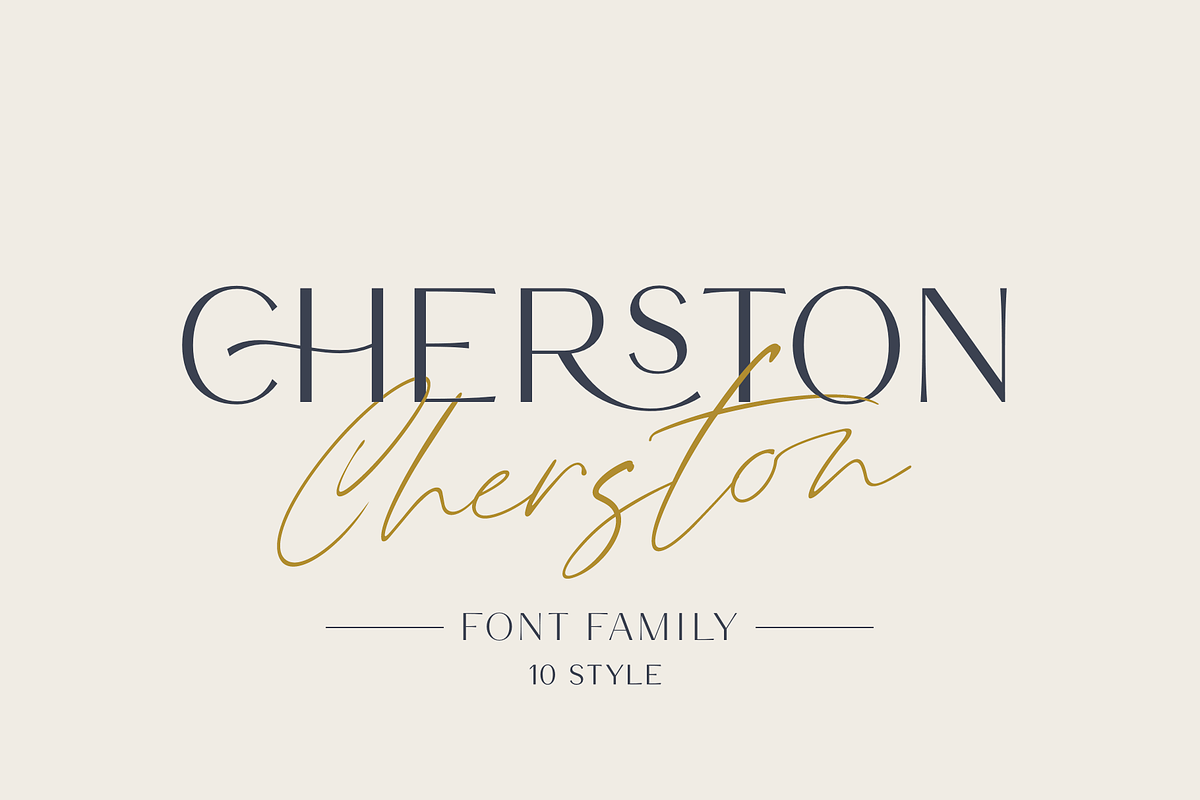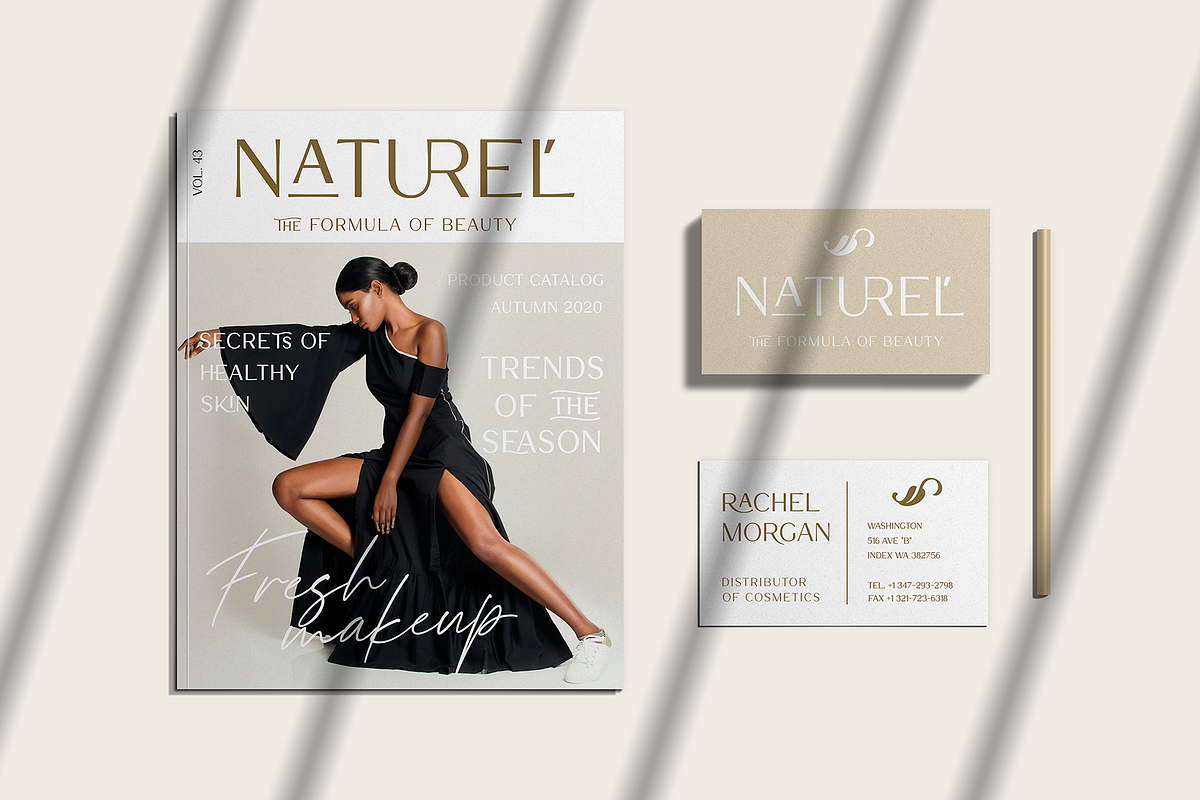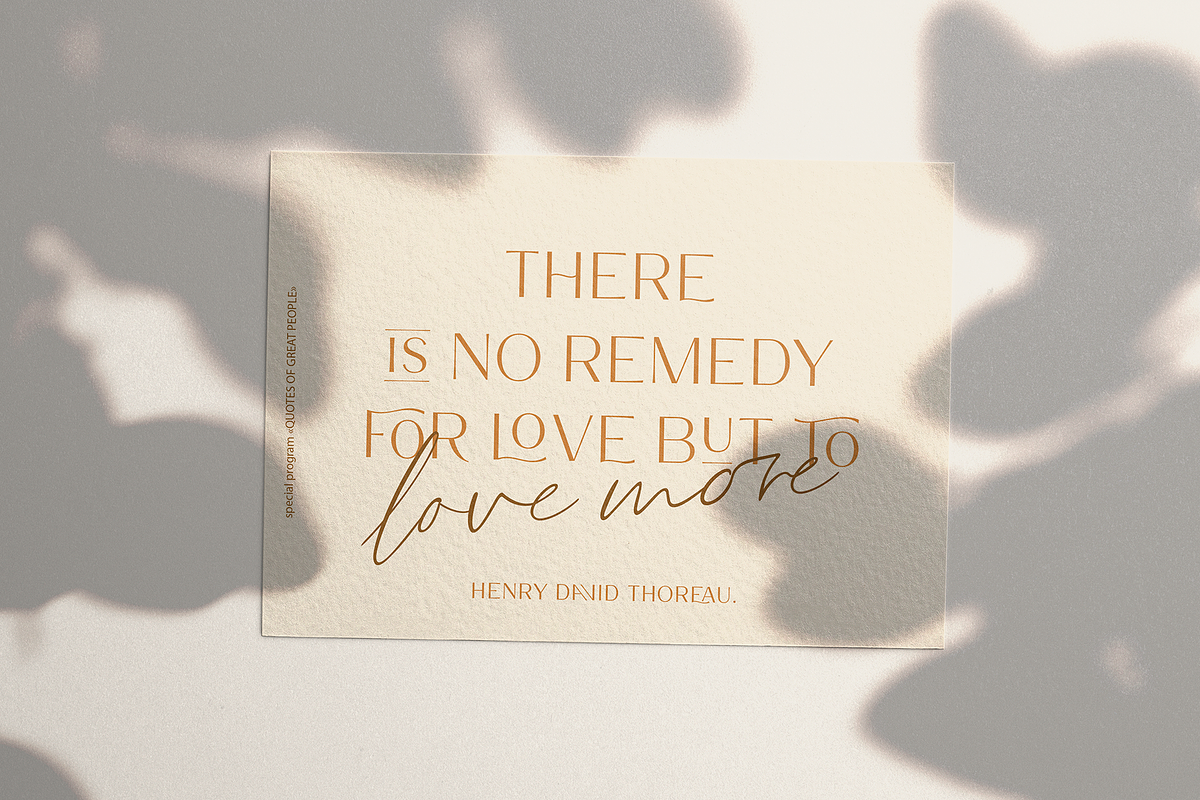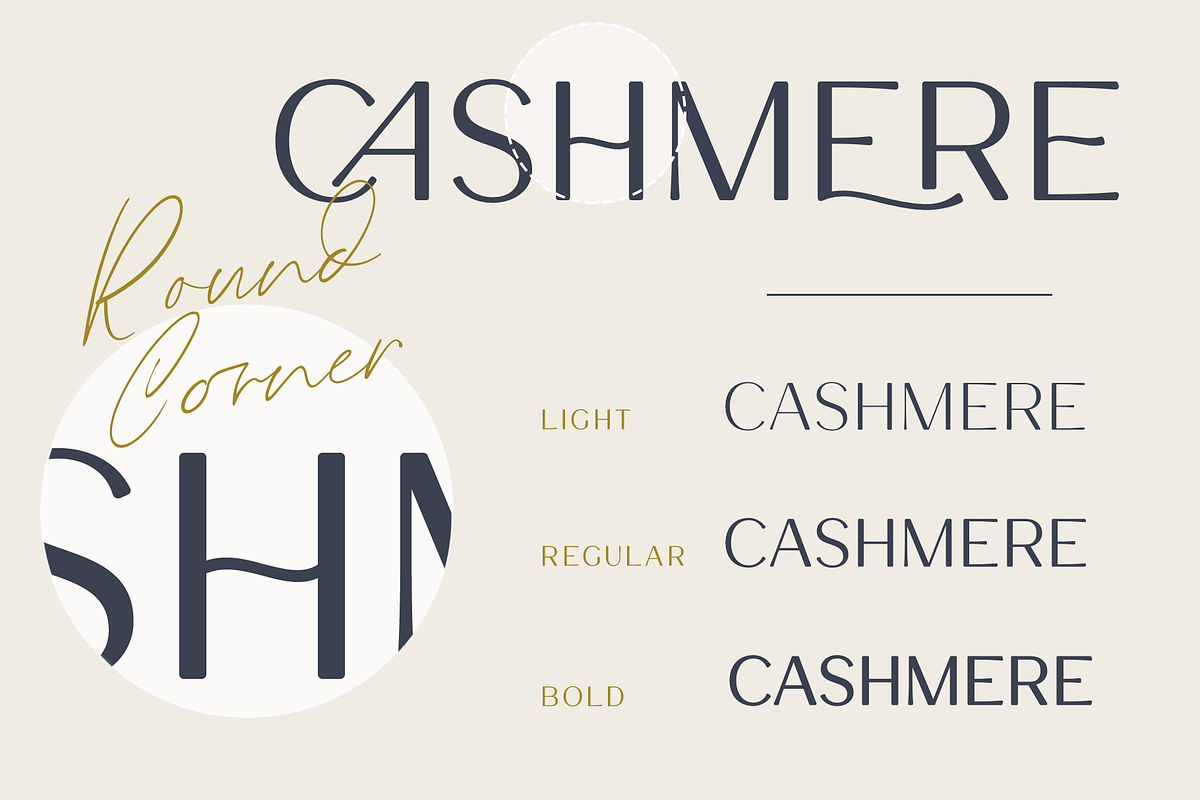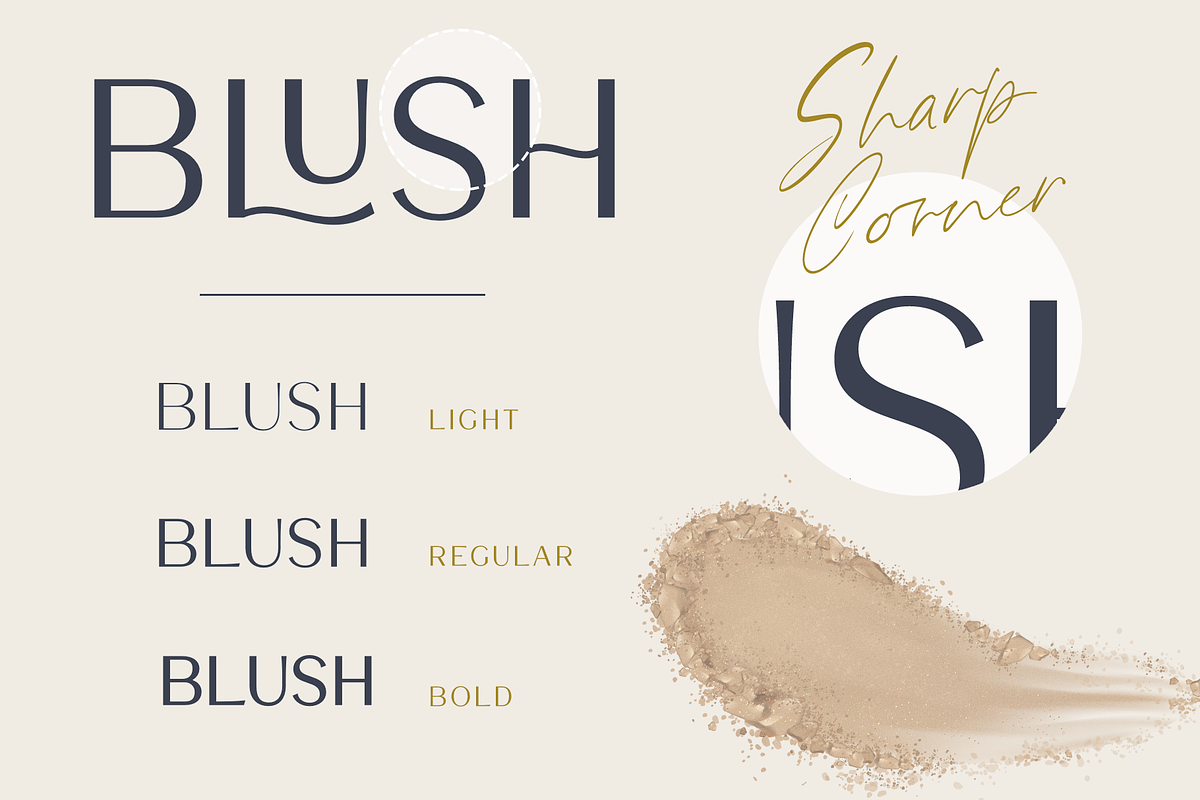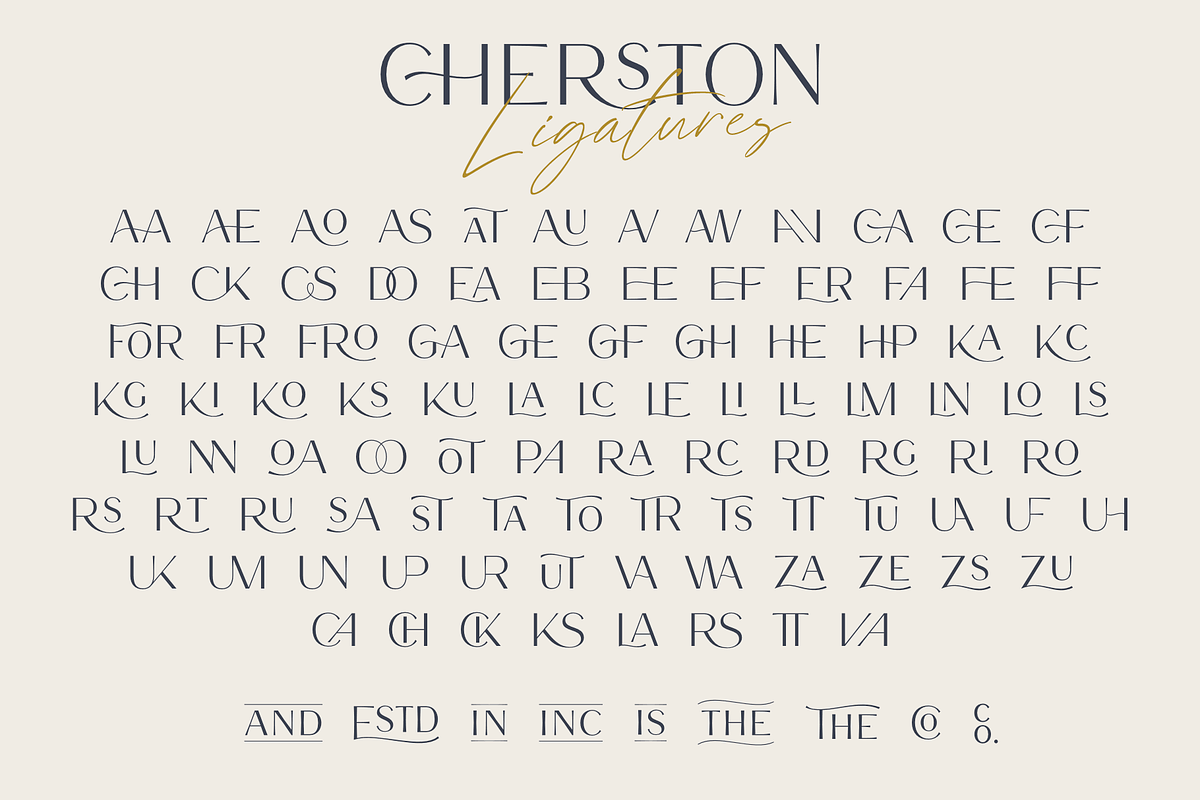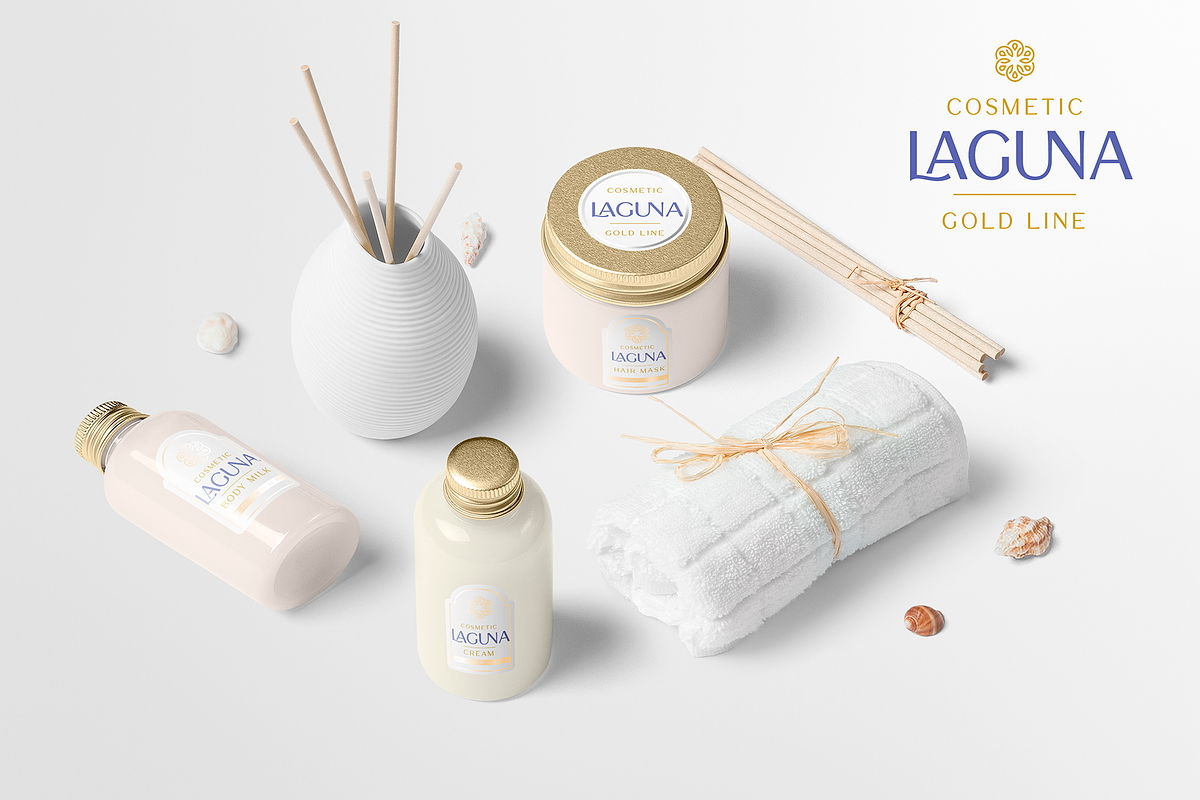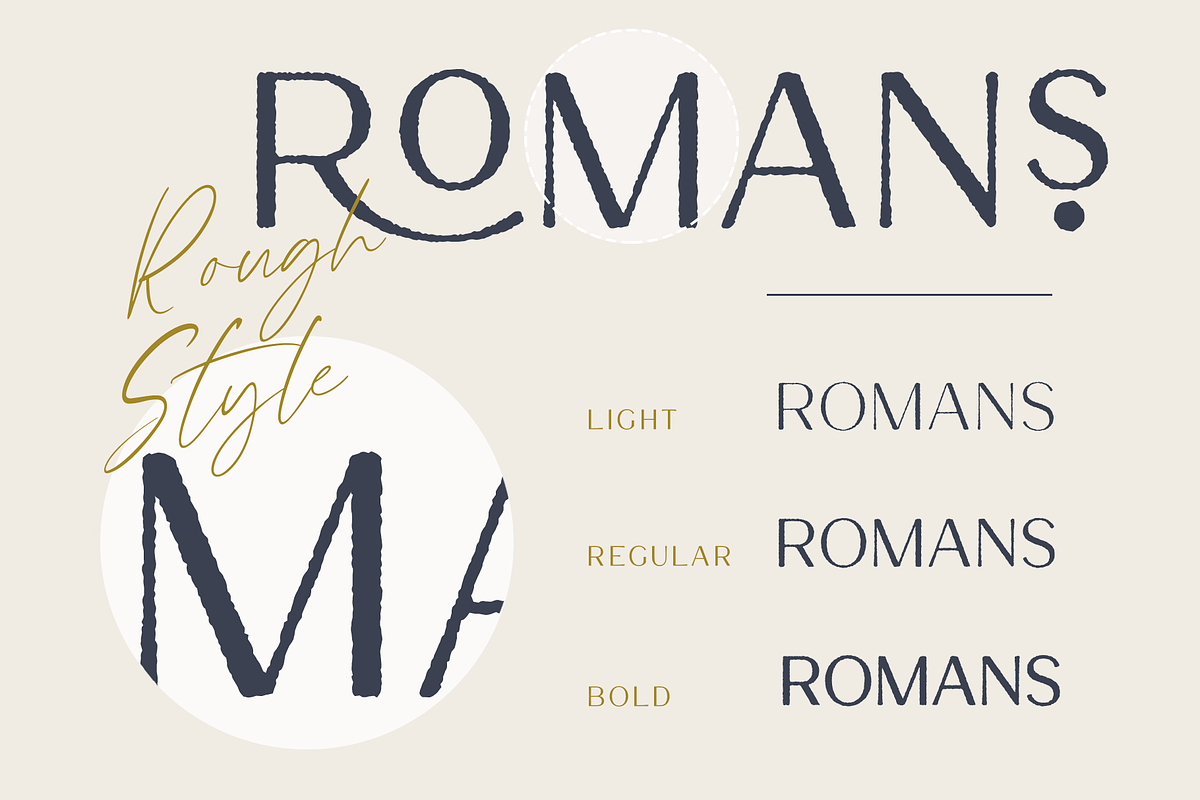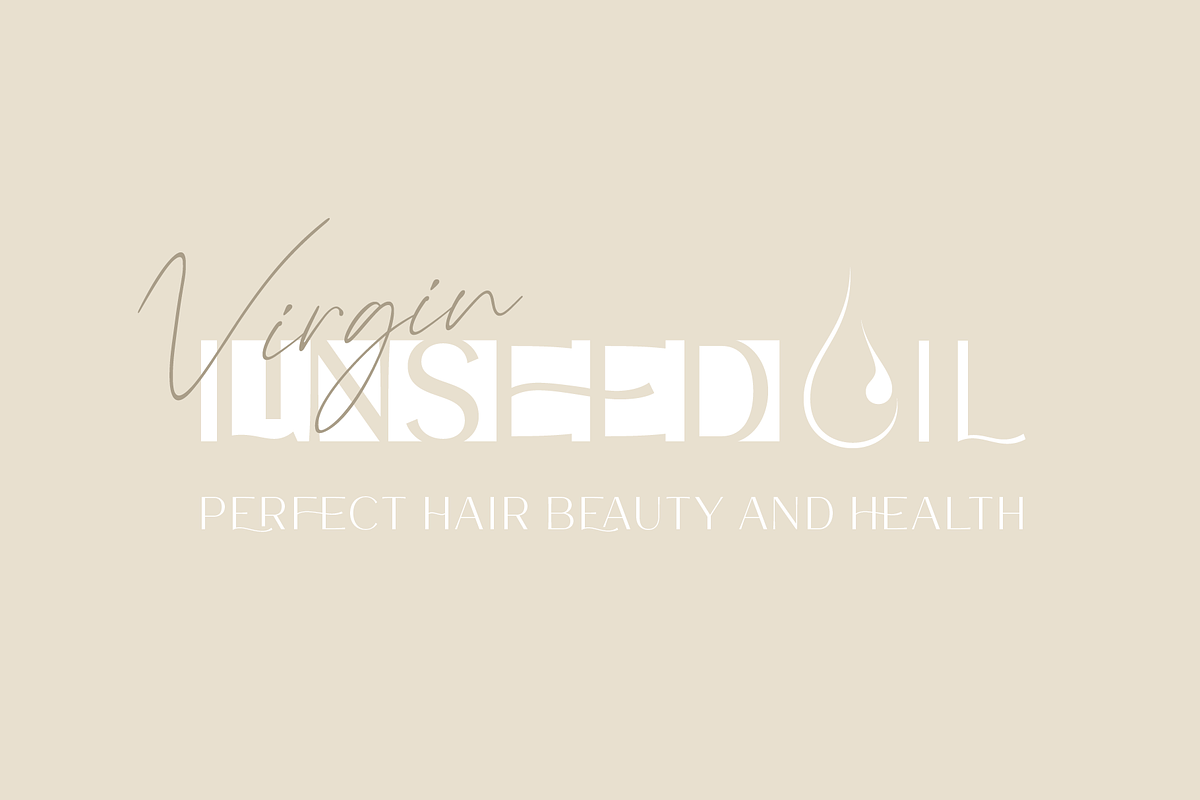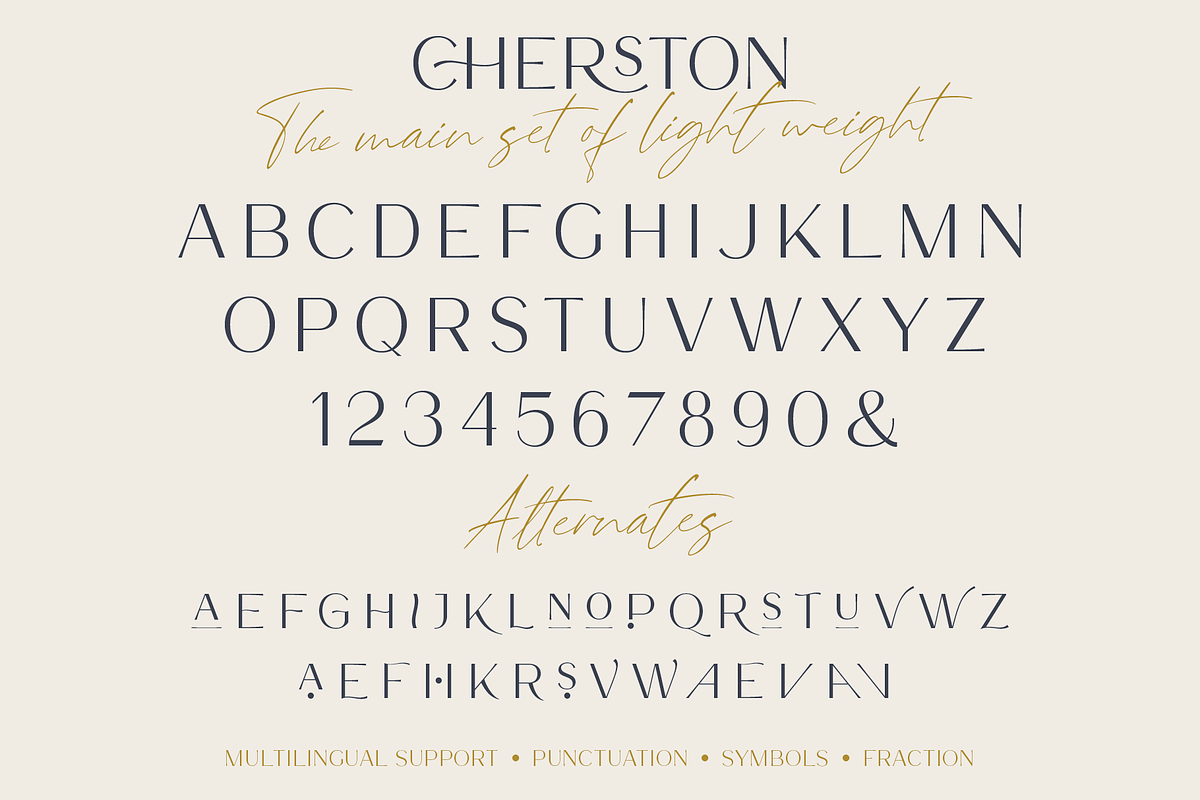
Cherston
Cherston this is a beautiful font family that includes 10 styles. Display Sans with sharp corners, rounded and rough style, made in three weights, light, regular and bold. This family also includes handwritten script fonts, it fits perfectly with this family, you can use it as an additional or main one. In this font, all the letters are UPPERCASE, you will find a variety of ligatures and alternates that will help you create a unique design for your project, try to change the ligatures and alternatives and you will see how many options you can choose.
Following international symbols support: ÀÁÂÃÄÅĄÇĆÈÉÊËĘÌÍÎÏÐÑŃŁÒÓÔÕÖØÙÚÛÜŚŠŸÝŹŻŽßàáâãäåçèéêëìíîïðñòóôõöøùúûüýÿąćęłńśšźżž
10 fonts ( 9 fonts display sans and 1 script font )
Full alphabet with Uppercase A-Z
Numbers, fractions
Punctuation and symbols
106 Ligatures
34 alternates